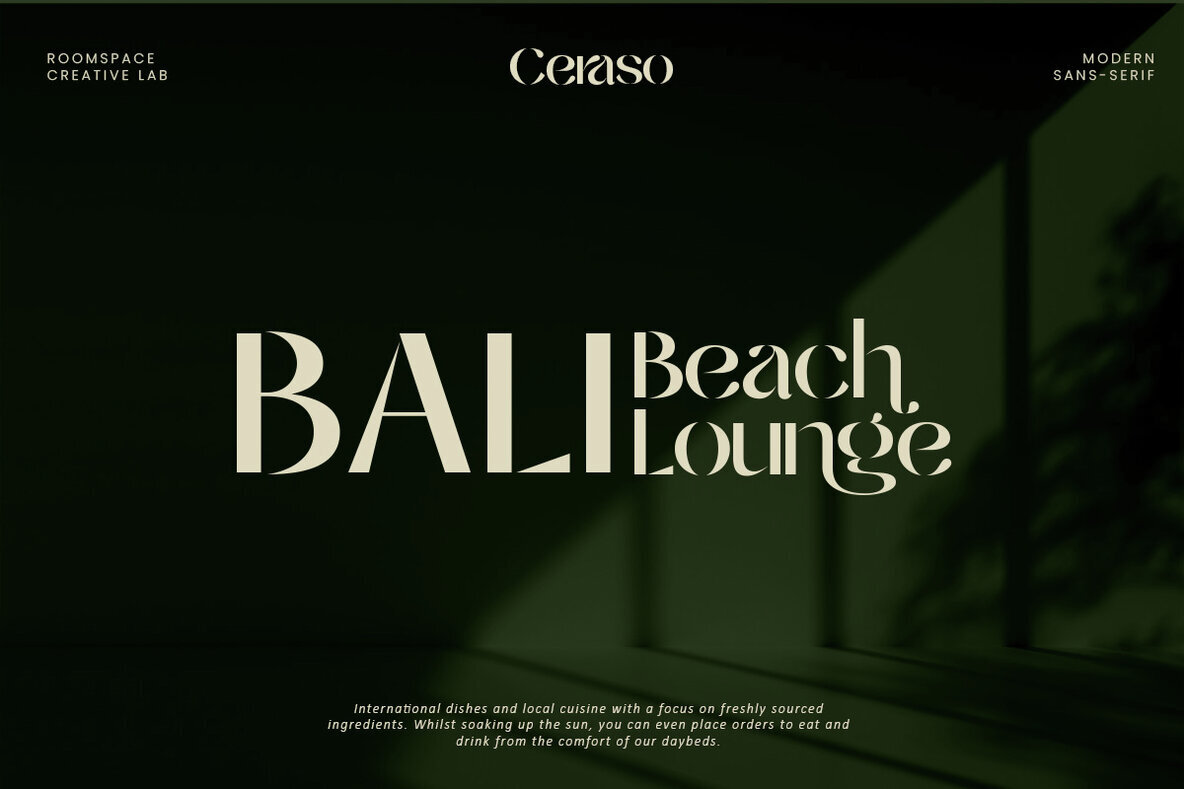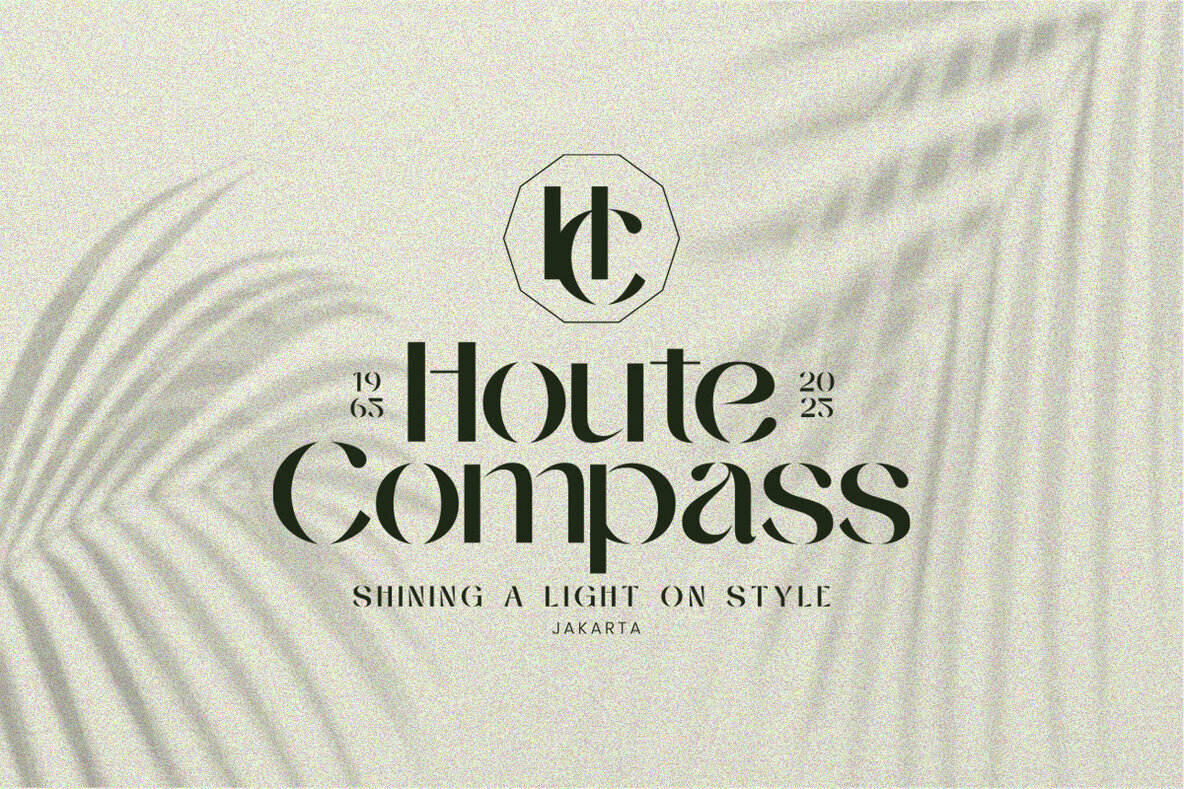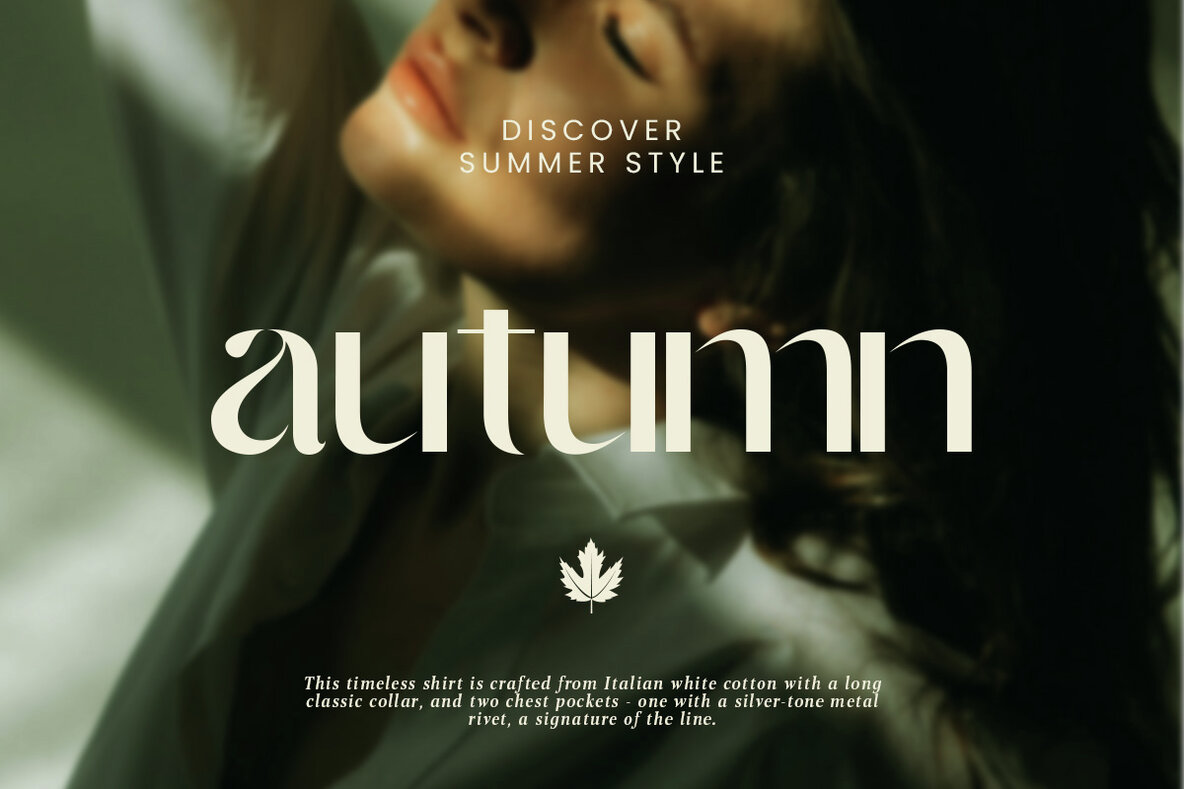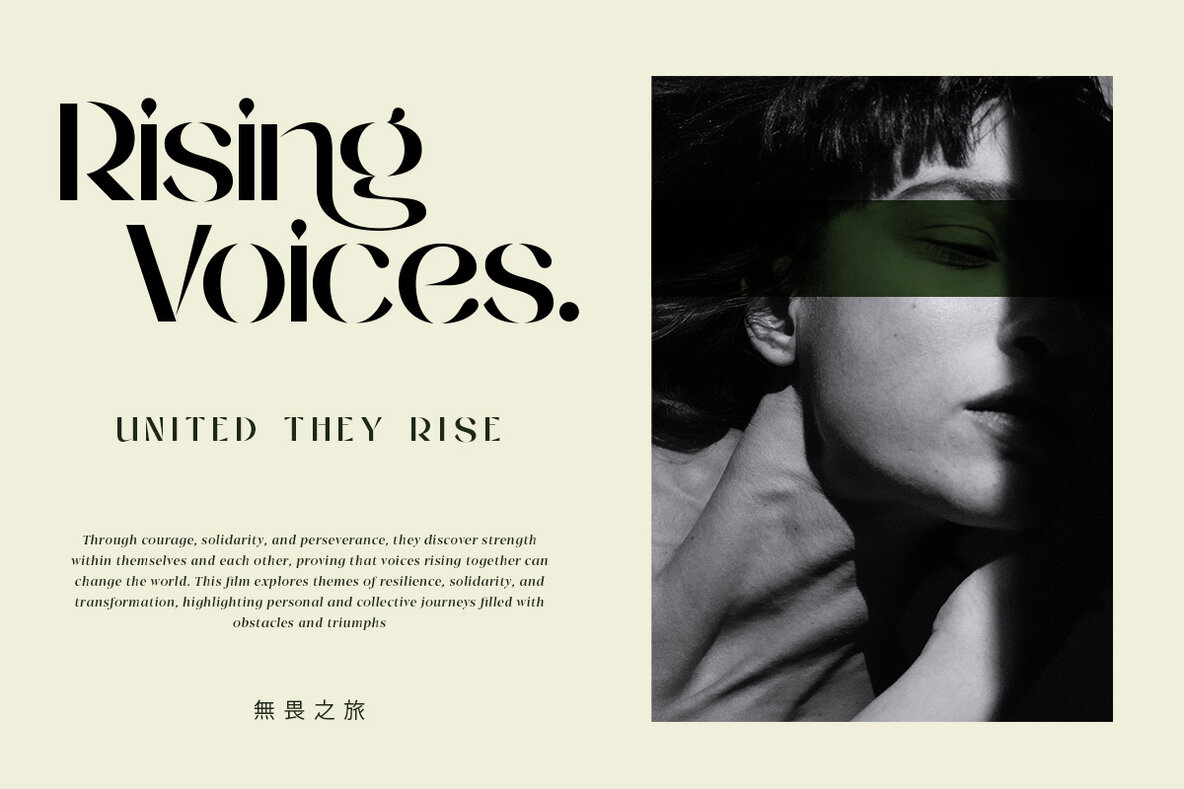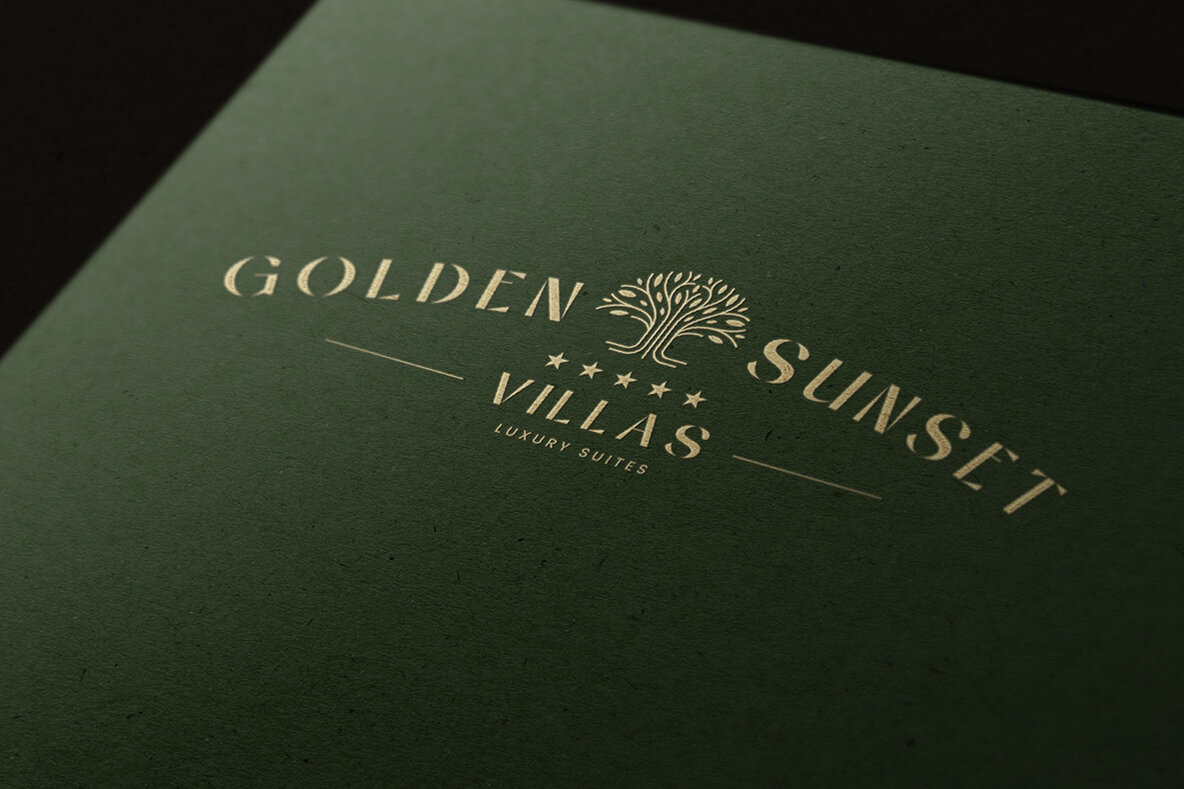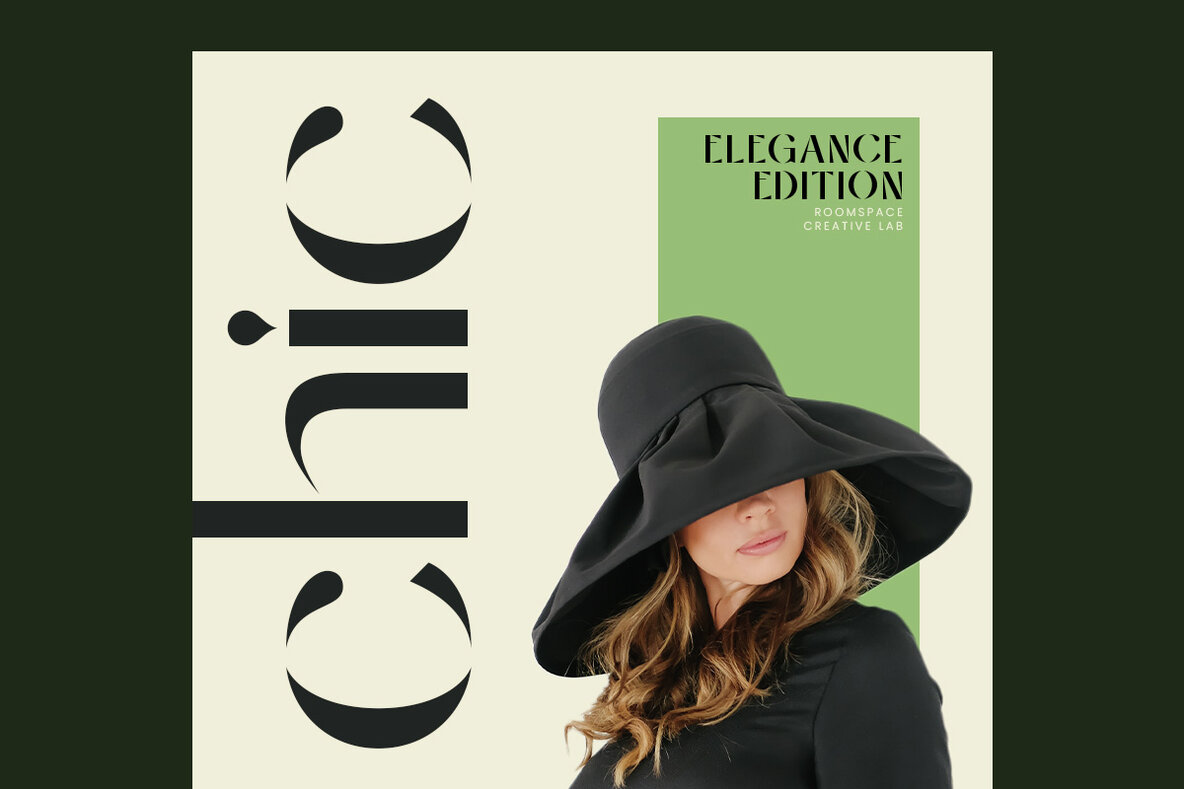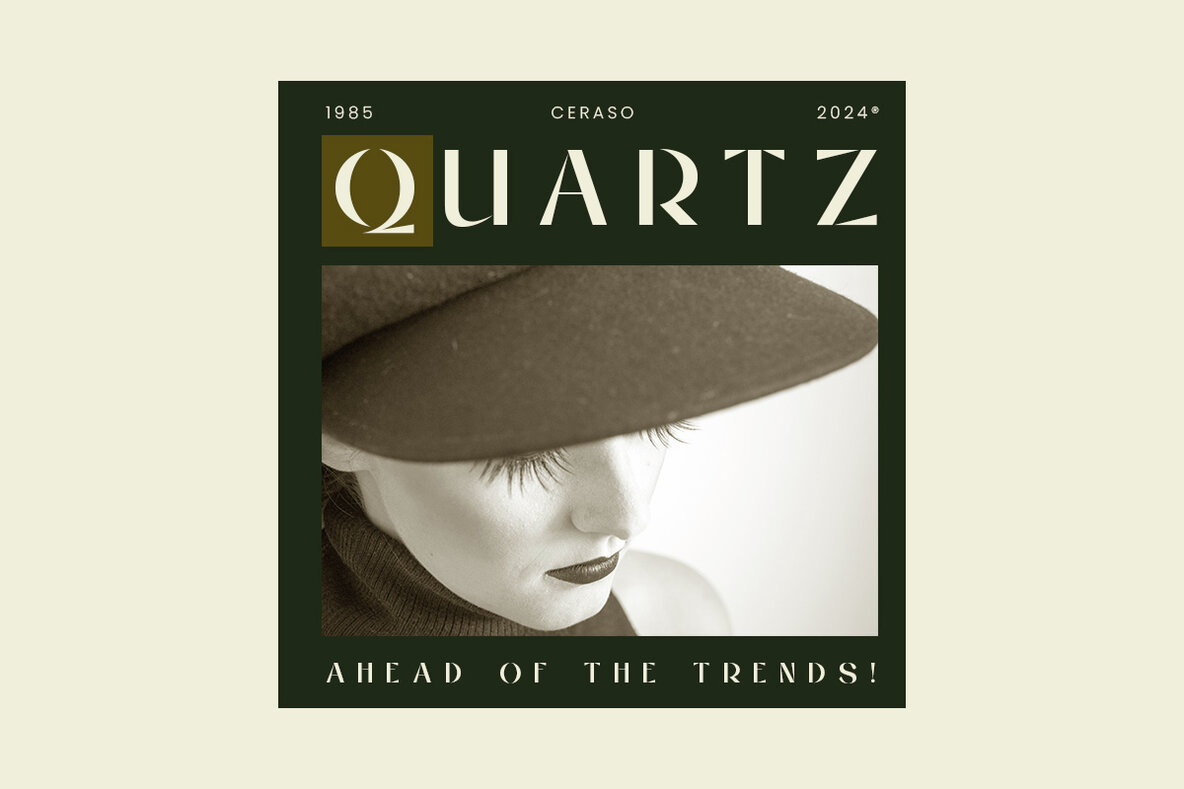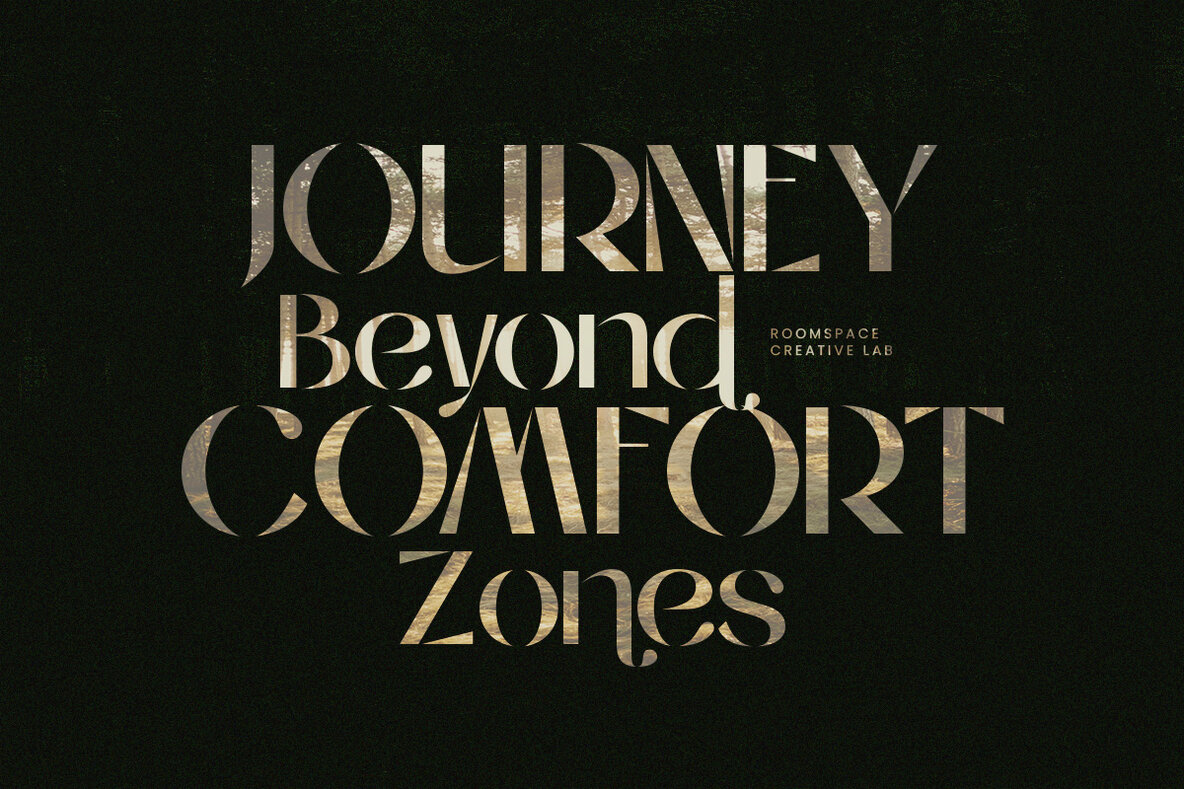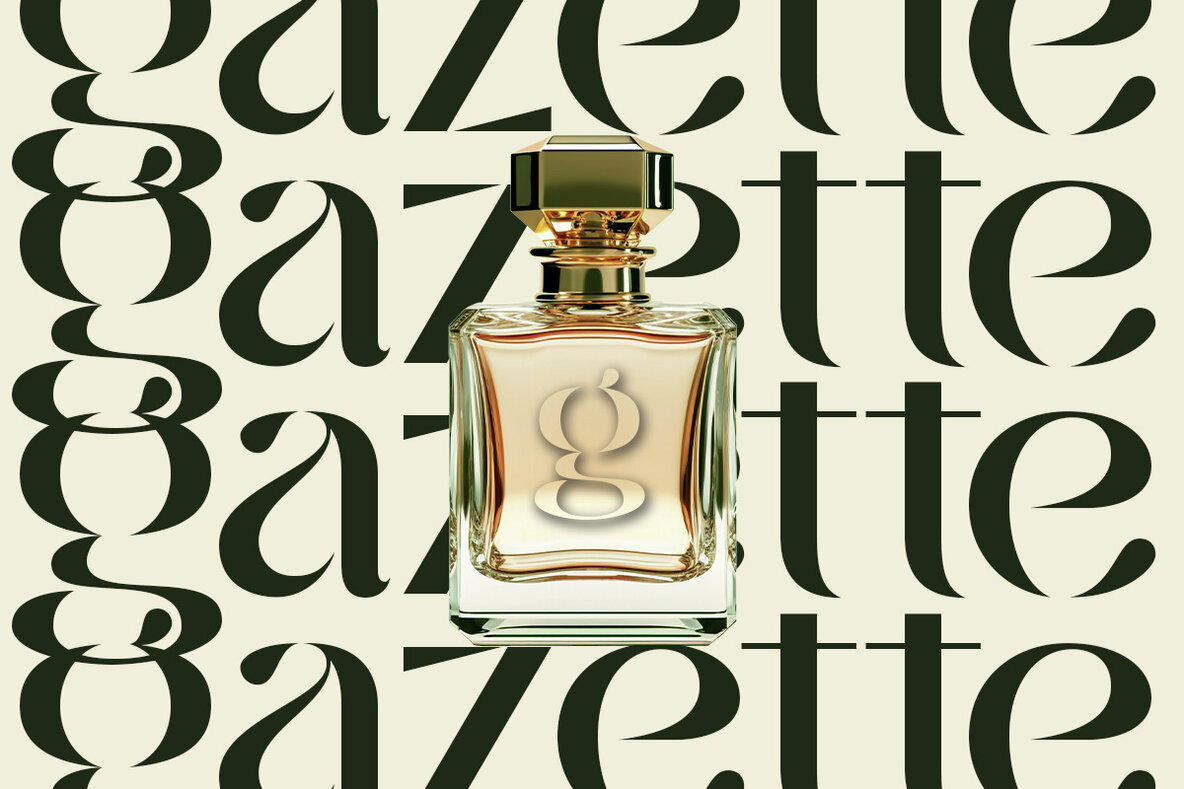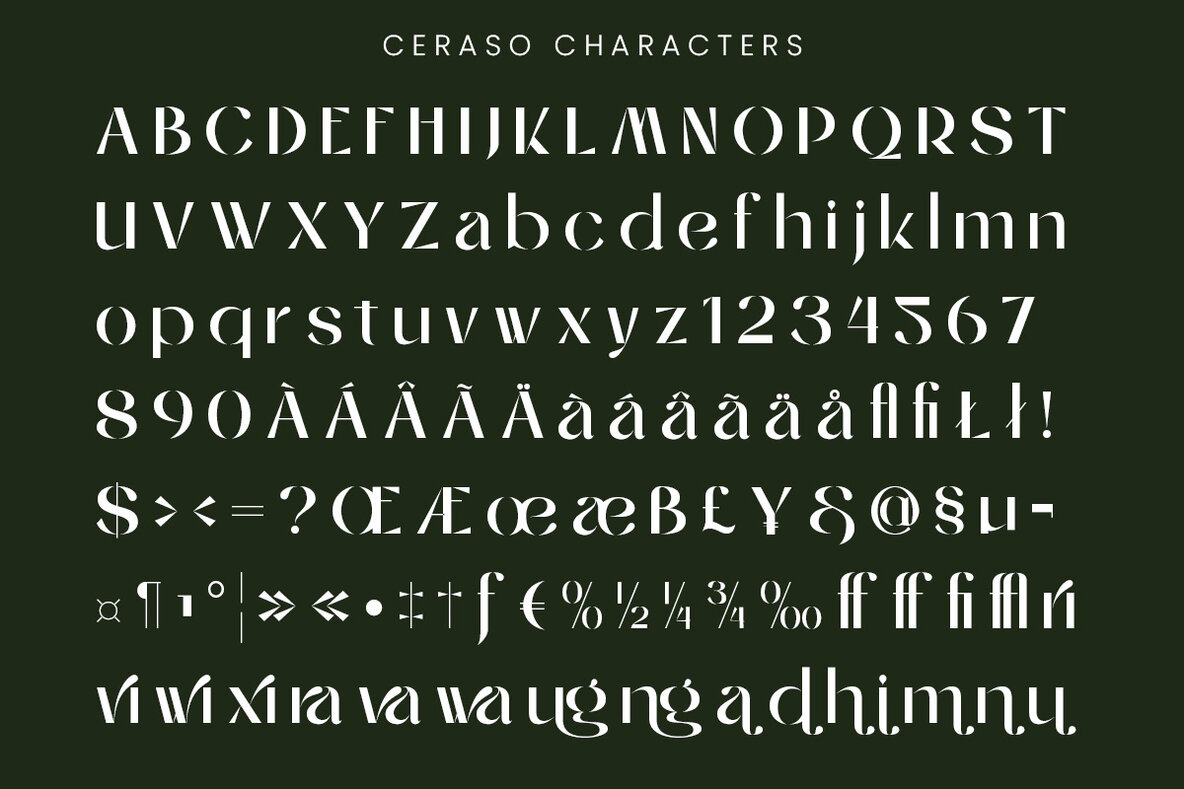
Ceraso Font
Ceraso Regular
Ceraso is a modern sans serif stencil font specifically designed for elegant branding and logo purposes. Combining contemporary design elements with the sharpness of stencil forms, Ceraso offers a clean and professional look while providing a strong and recognizable character. Perfect for a wide range of design applications, from corporate visual identity to premium product packaging, Ceraso ensures that every brand stands out with elegance and uniqueness. Fonts Features: